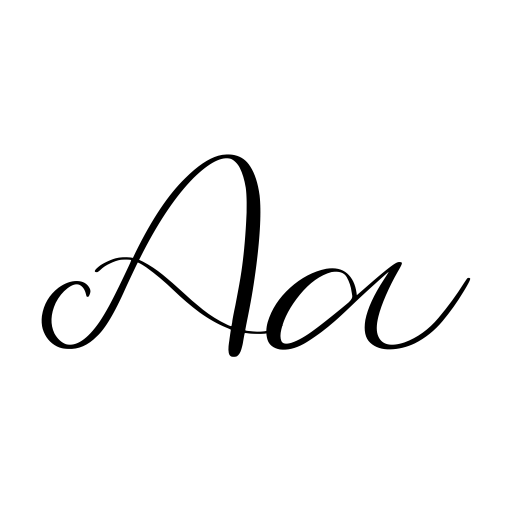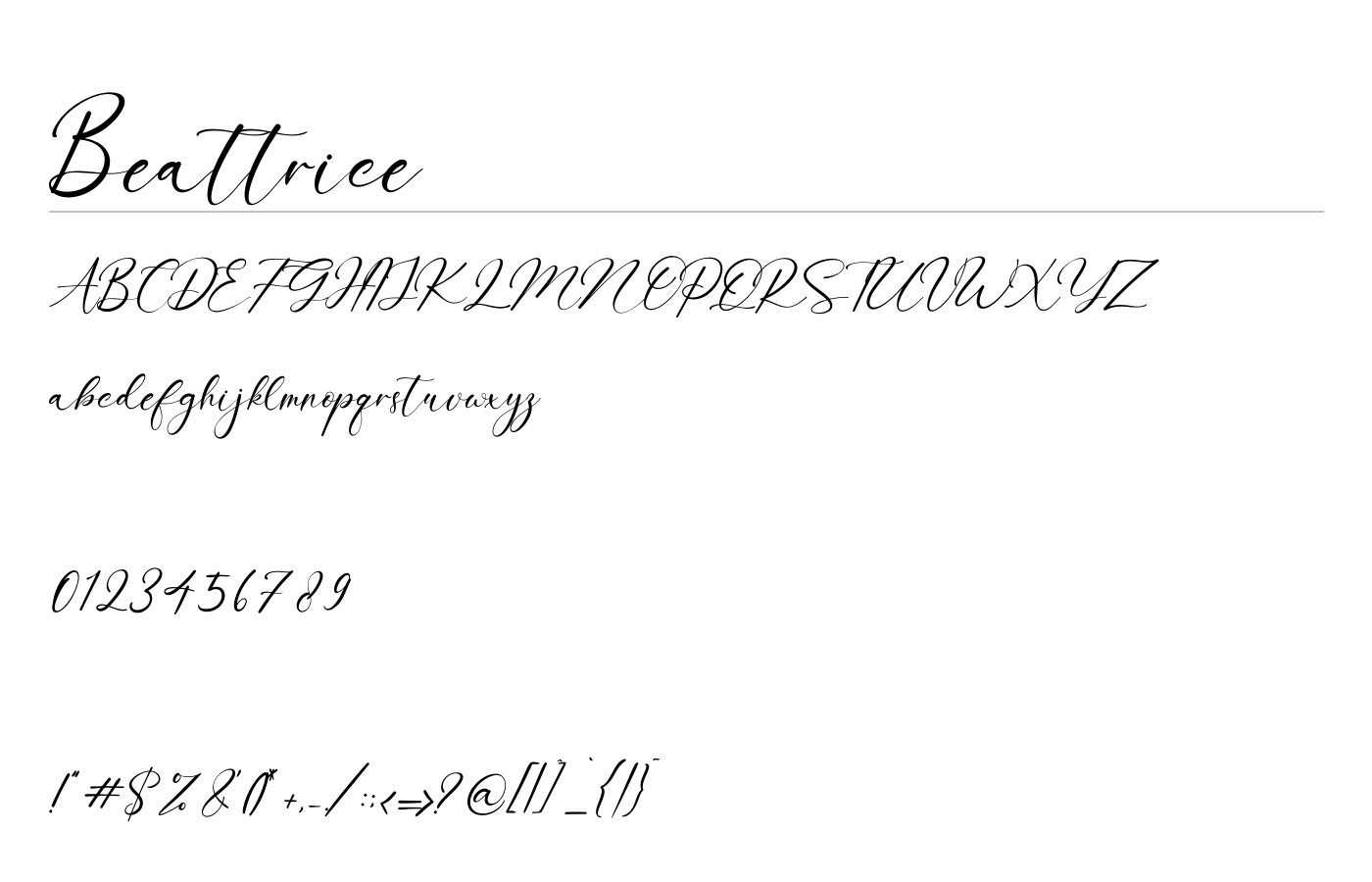
Beattrice is a delicate script font with elegant, flowing strokes that create a graceful and feminine look. Its slender, lightly contrasting lines and stylish cursive letterforms make it perfect for wedding invitations, fashion branding, and other upscale designs that want to convey sophistication and charm. This font shines in decorative uses such as logos and headlines where its refined personality can truly stand out.
Beattrice Font
About Beattrice Font
| Font family | Beattrice Font |
| Designer | Typeface©(KongFont).2020 |